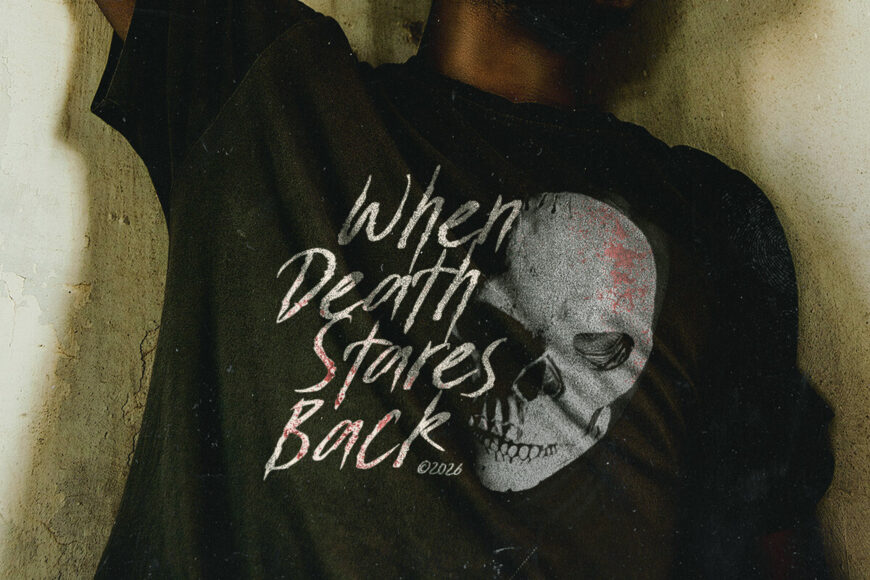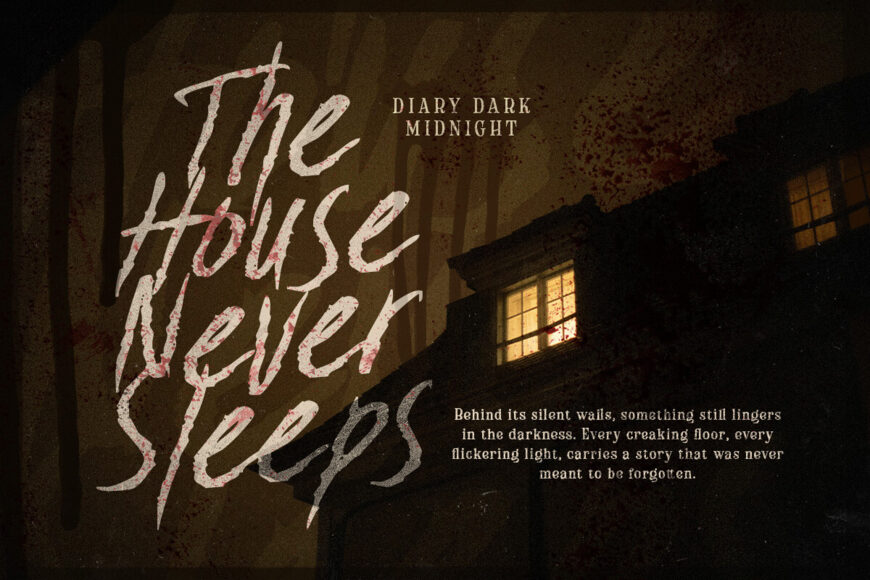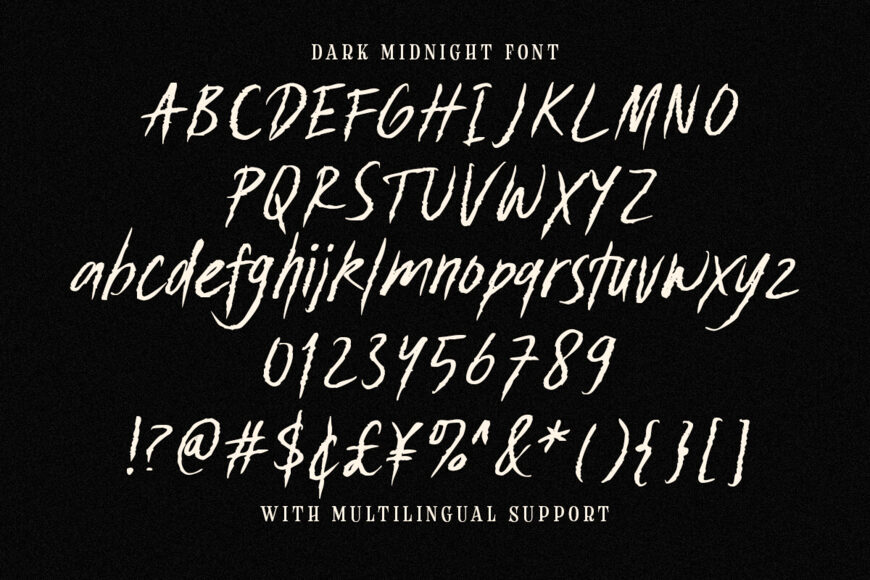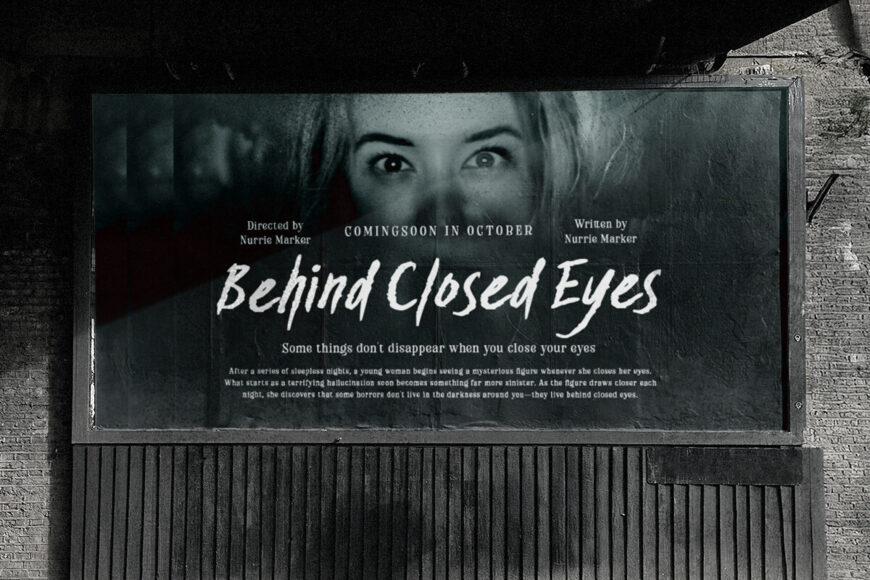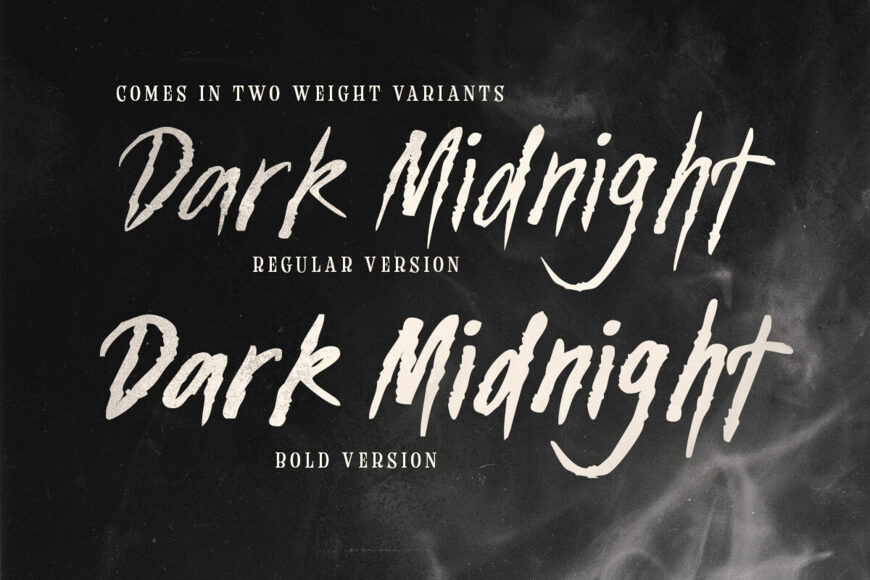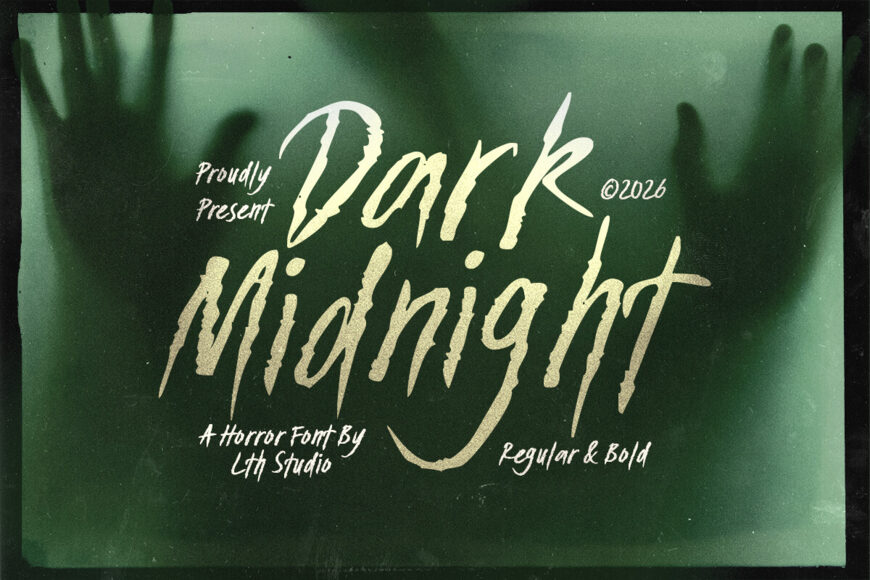
Dark Midnight delivers chilling suspense through raw brush textures and eerie, midnight-inspired horror. This sinister display font comes in Regular and Bold styles, featuring jagged dry-brush strokes, distressed claw-like edges, and tall, dramatic letterforms.
Its fierce, menacing character adds instant cinematic tension, mystery, and thriller energy to headlines and designs. Perfect for Halloween invitations, horror posters, thriller book covers, spooky apparel, haunted house signage, metal album artwork, and personalized Cricut or Silhouette SVG projects.